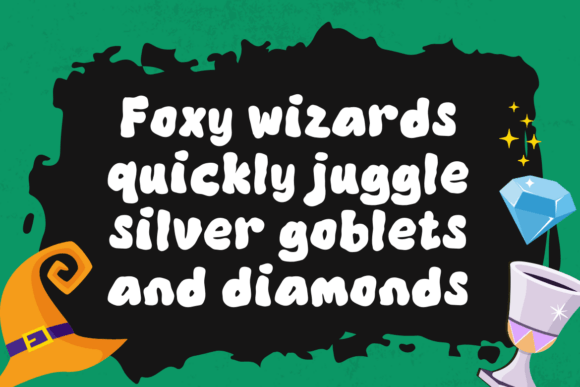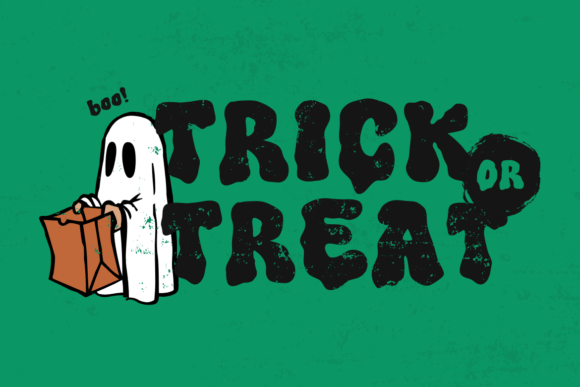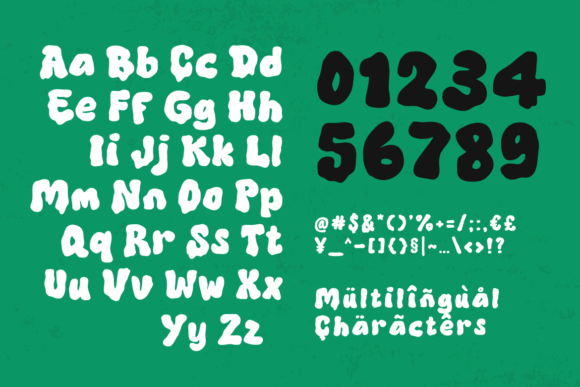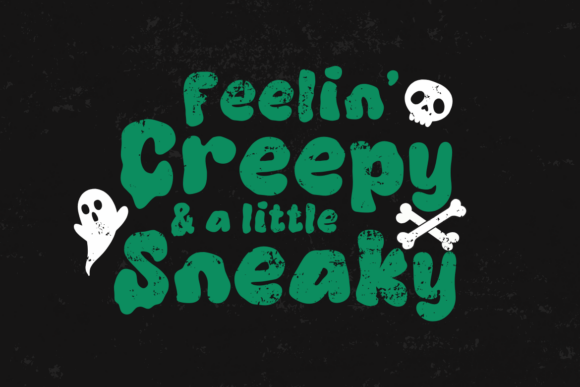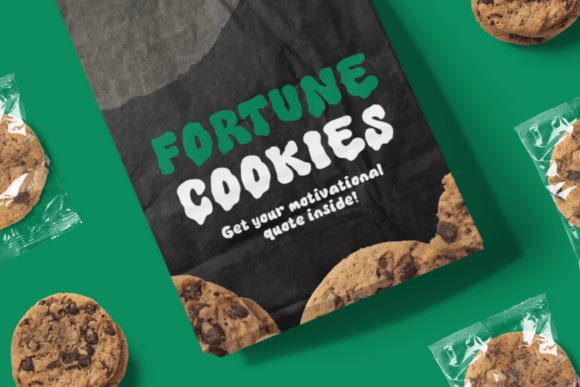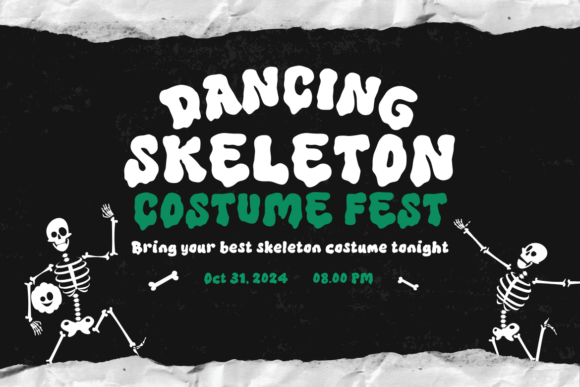
Introduction to Melthink Font
Introducing Melthink, the perfect font for Halloween, captures the eerie charm of the season with its unique meltdown style.
This font is ideal for a variety of applications, including posters, invitations, and social media graphics, ensuring your designs truly stand out Its dripping effect evokes classic horror elements, adding a dramatic flair to any text, while still maintaining high readability.